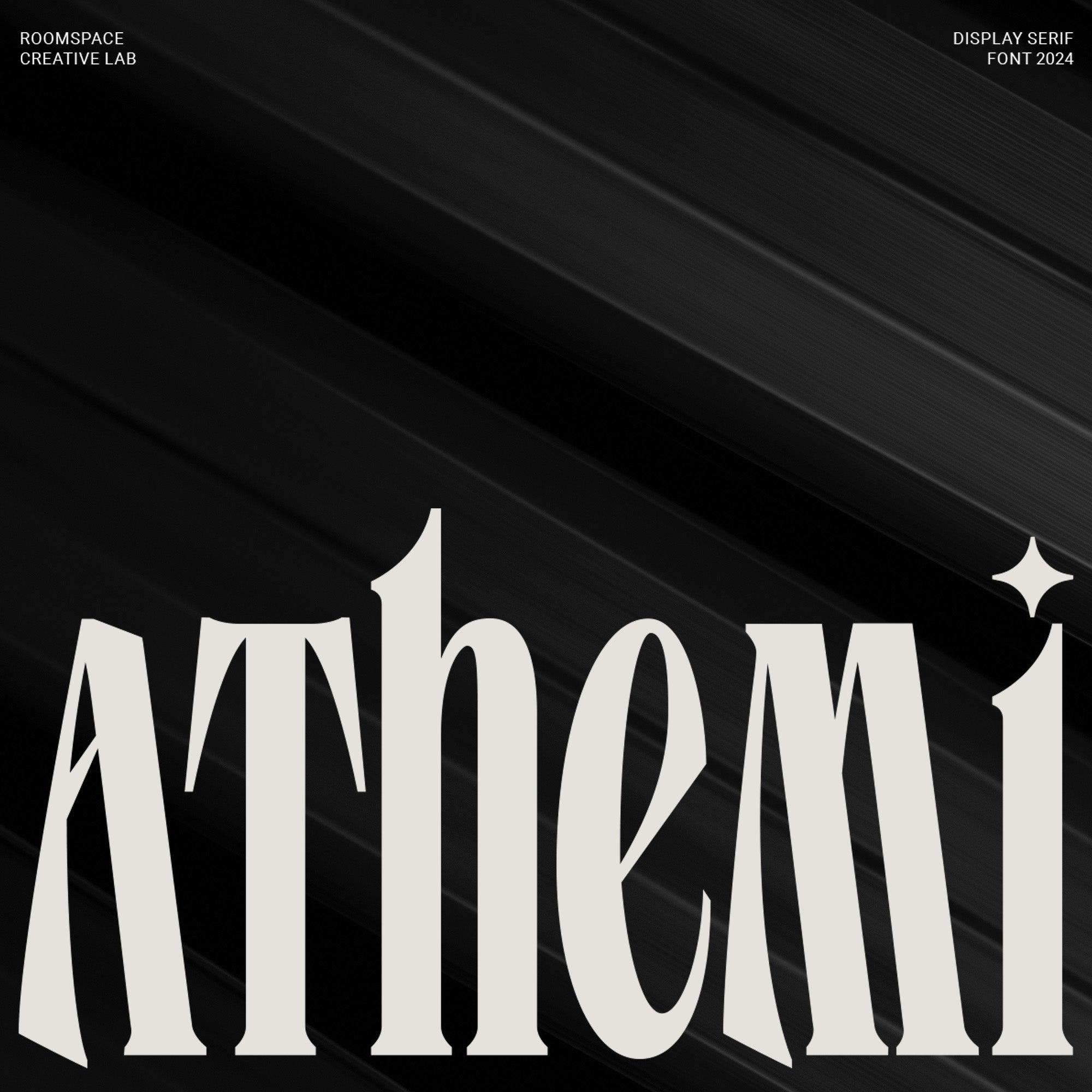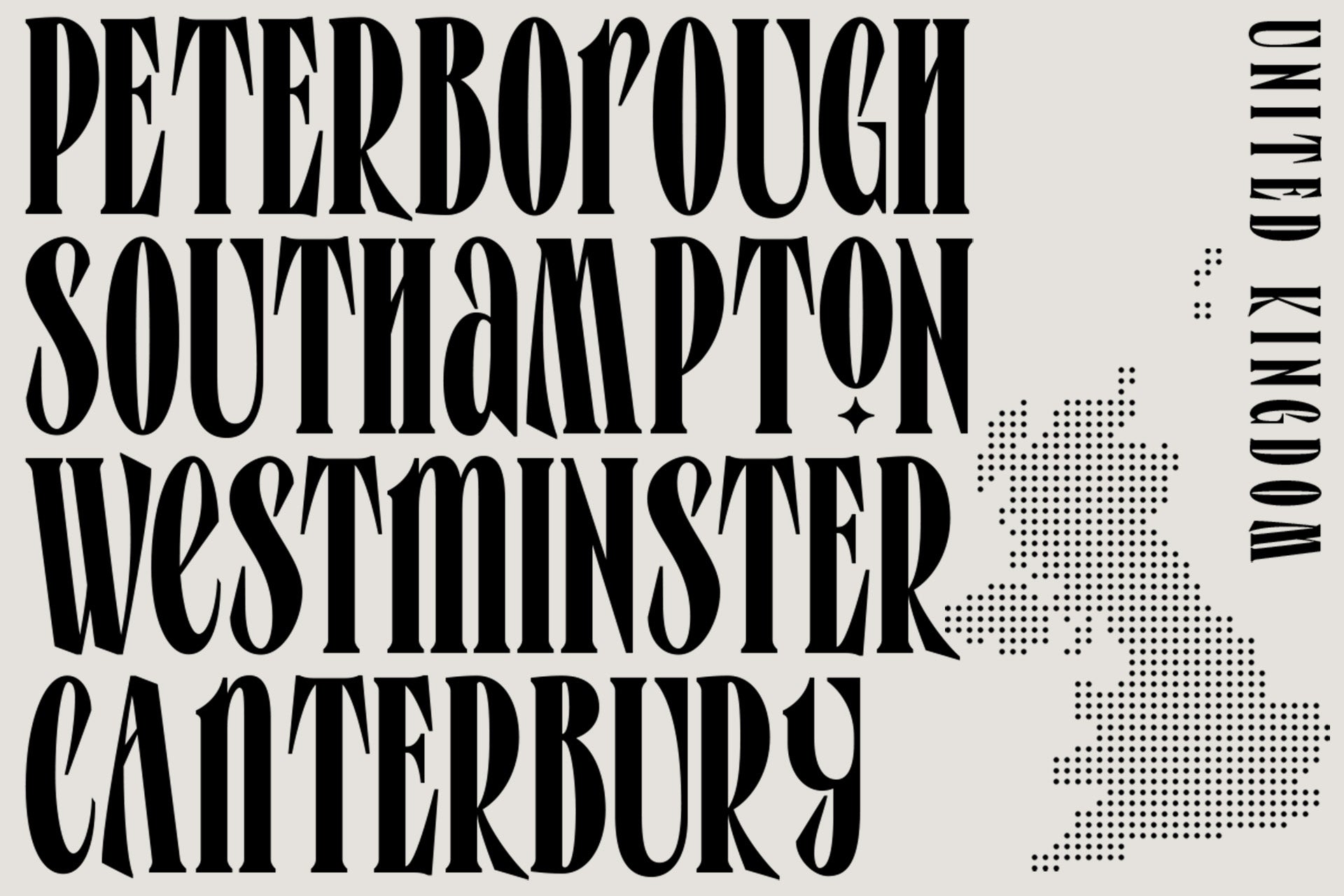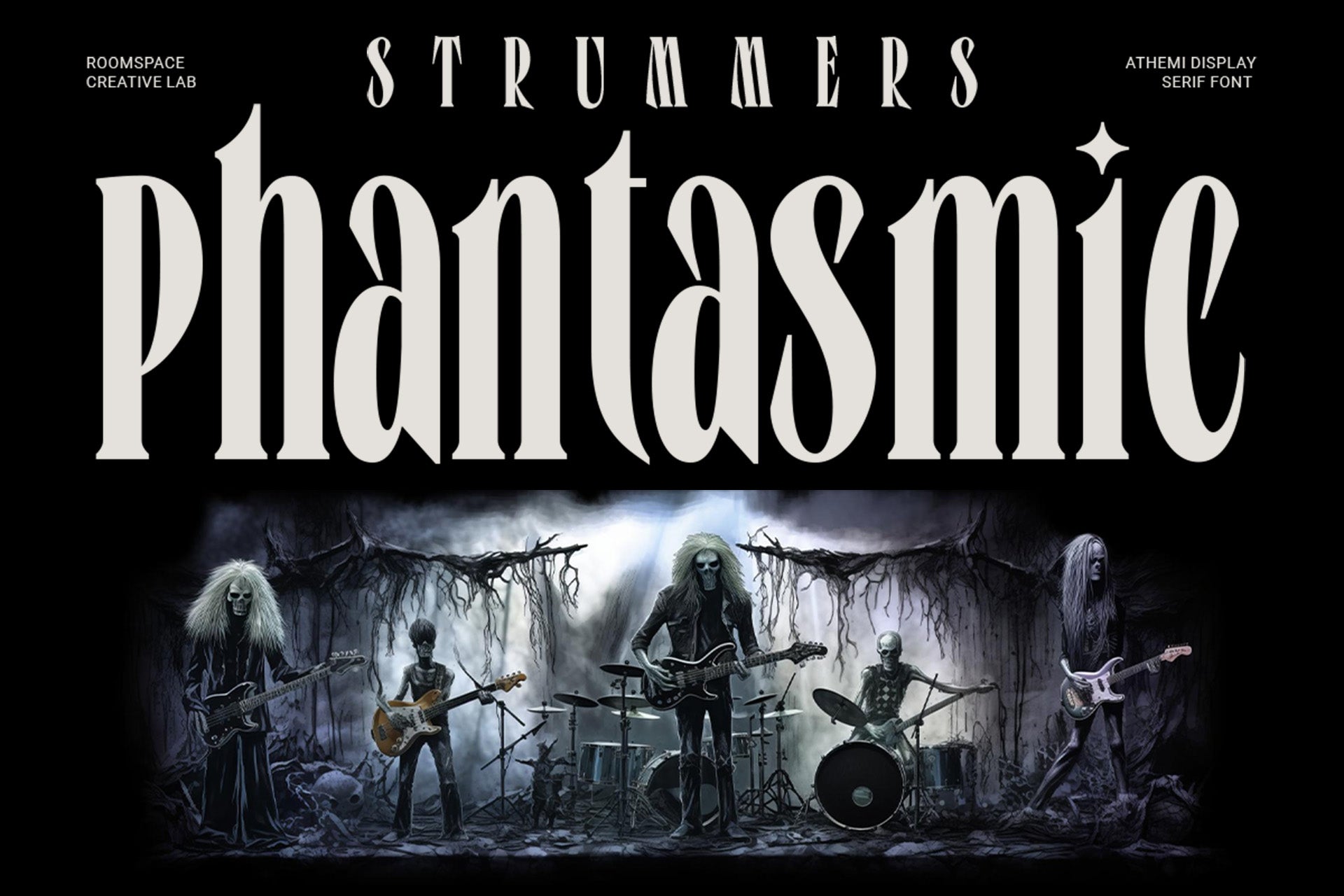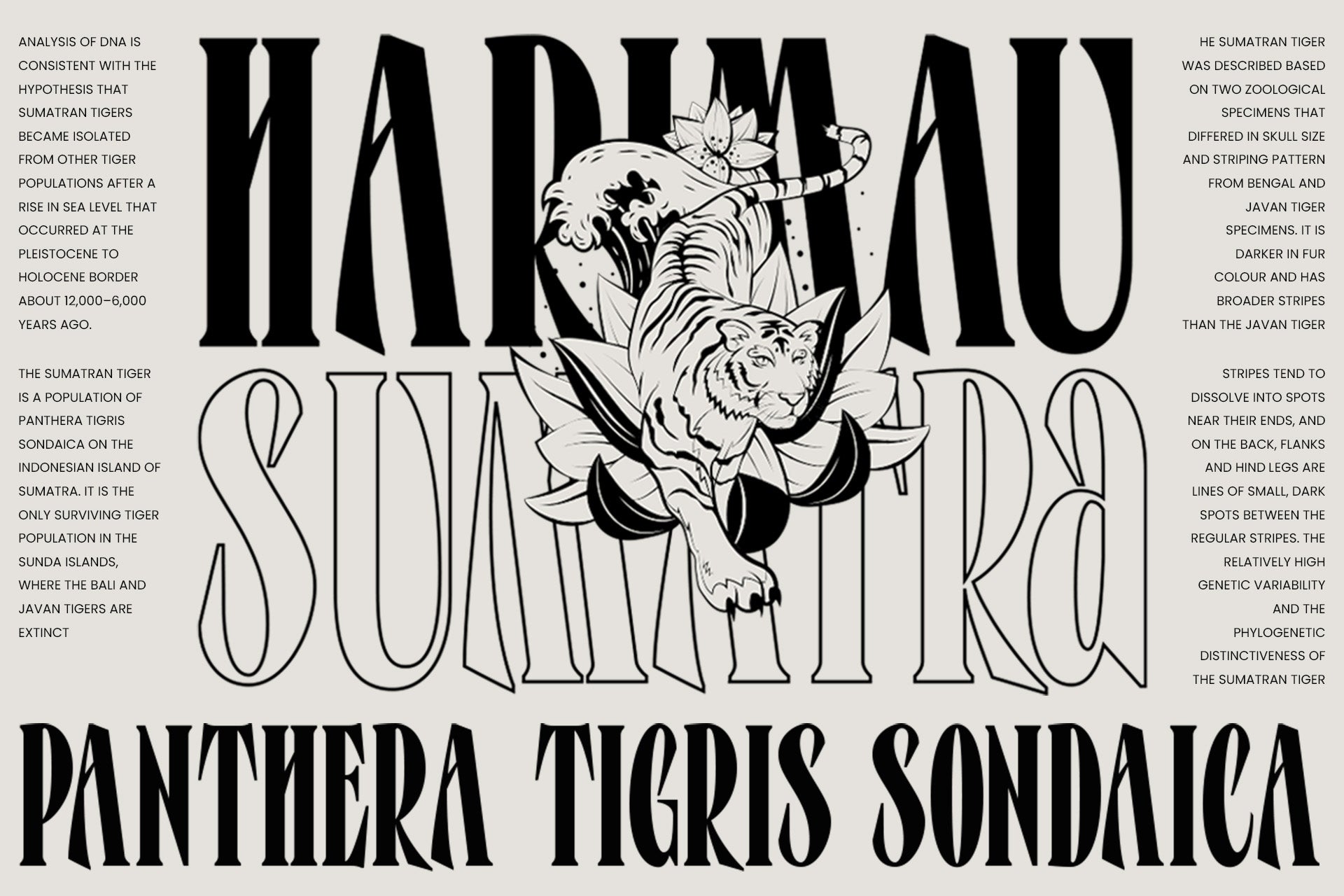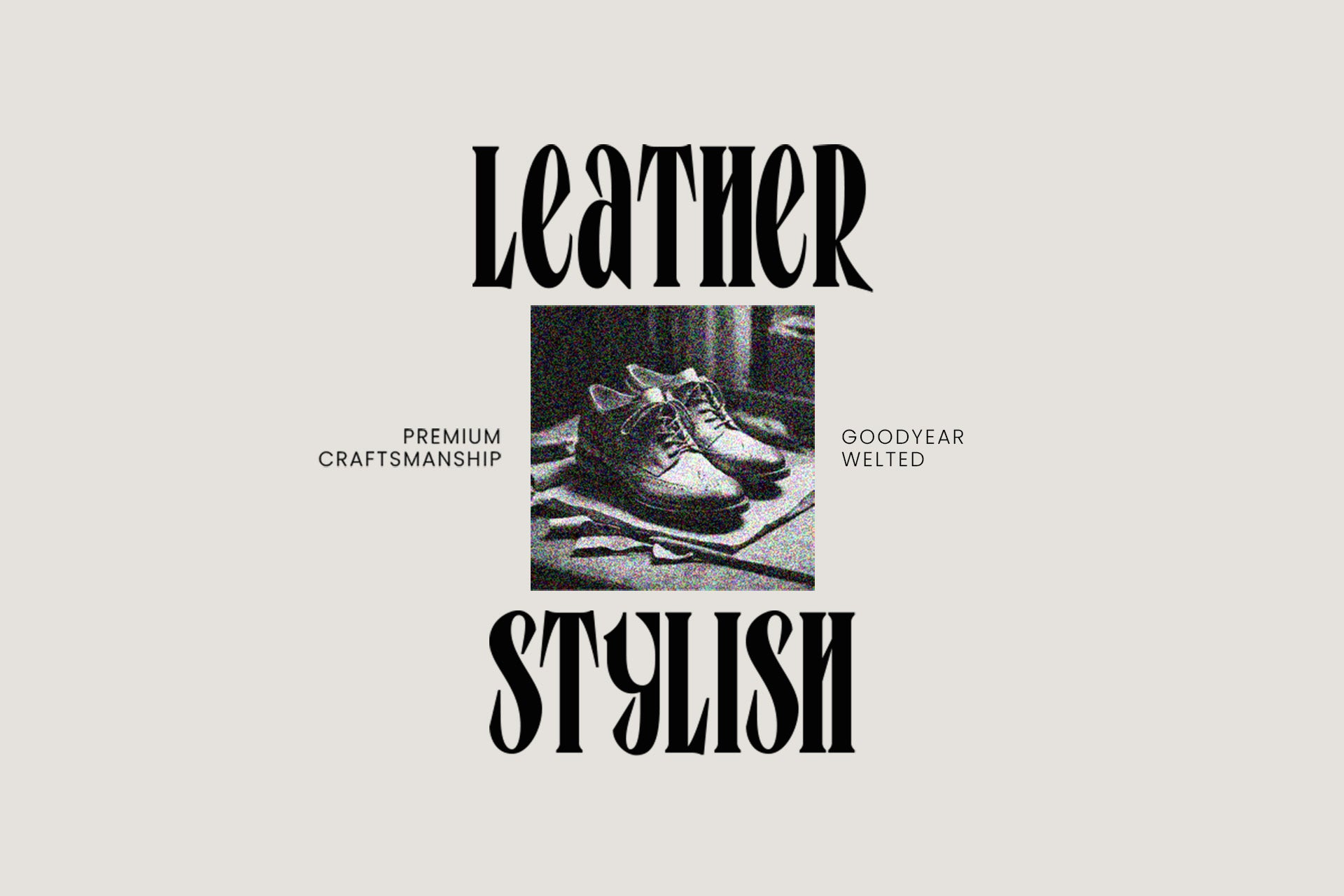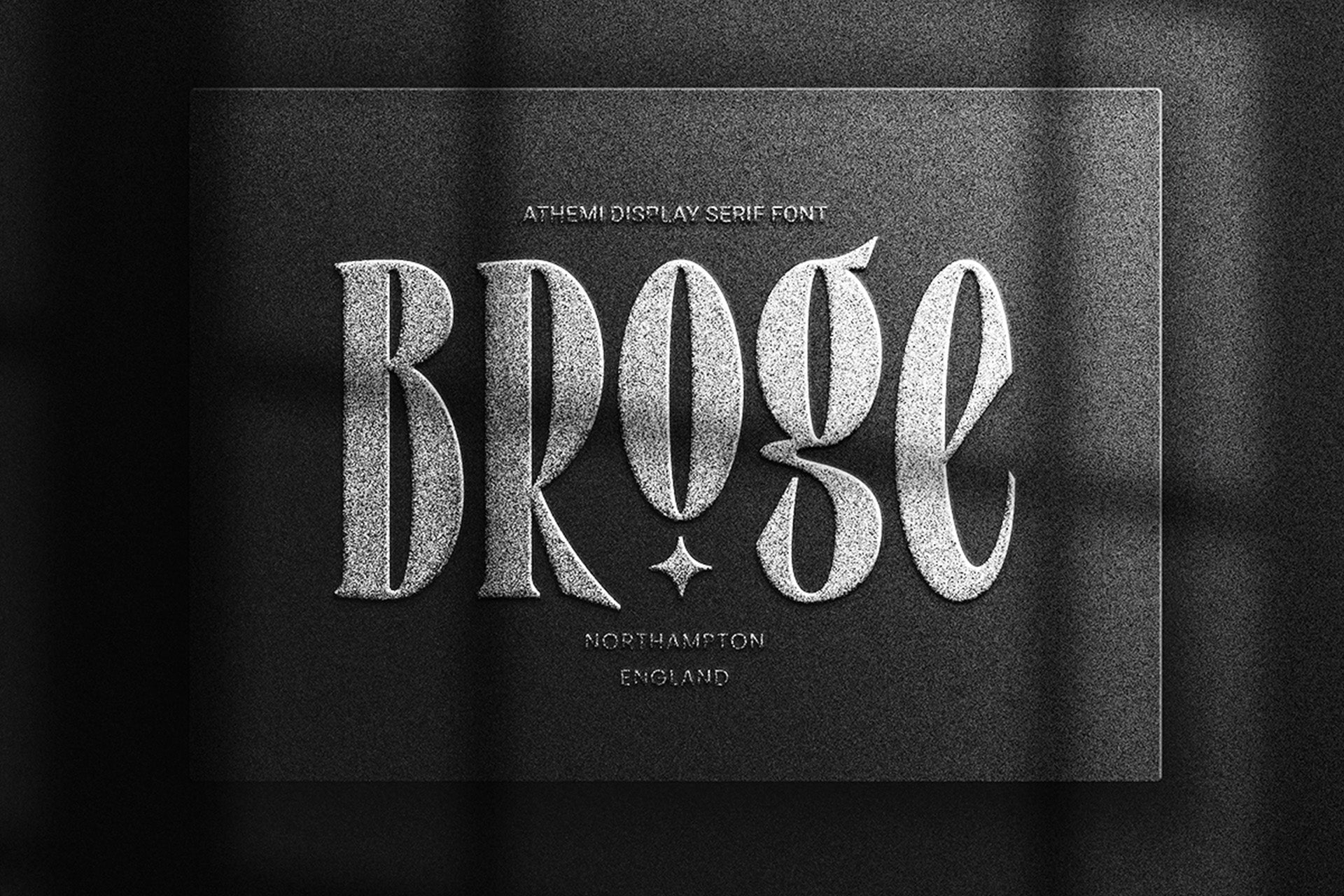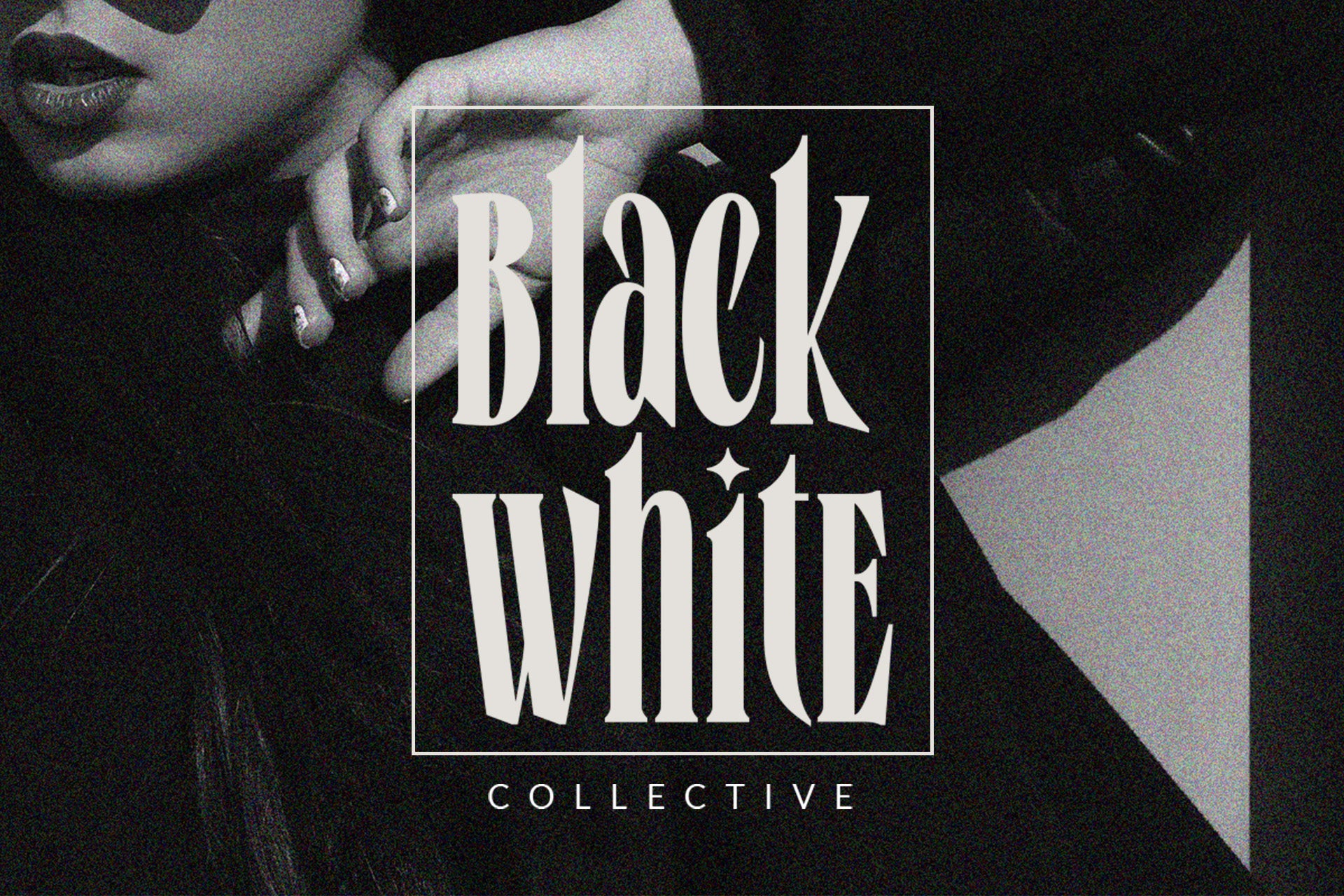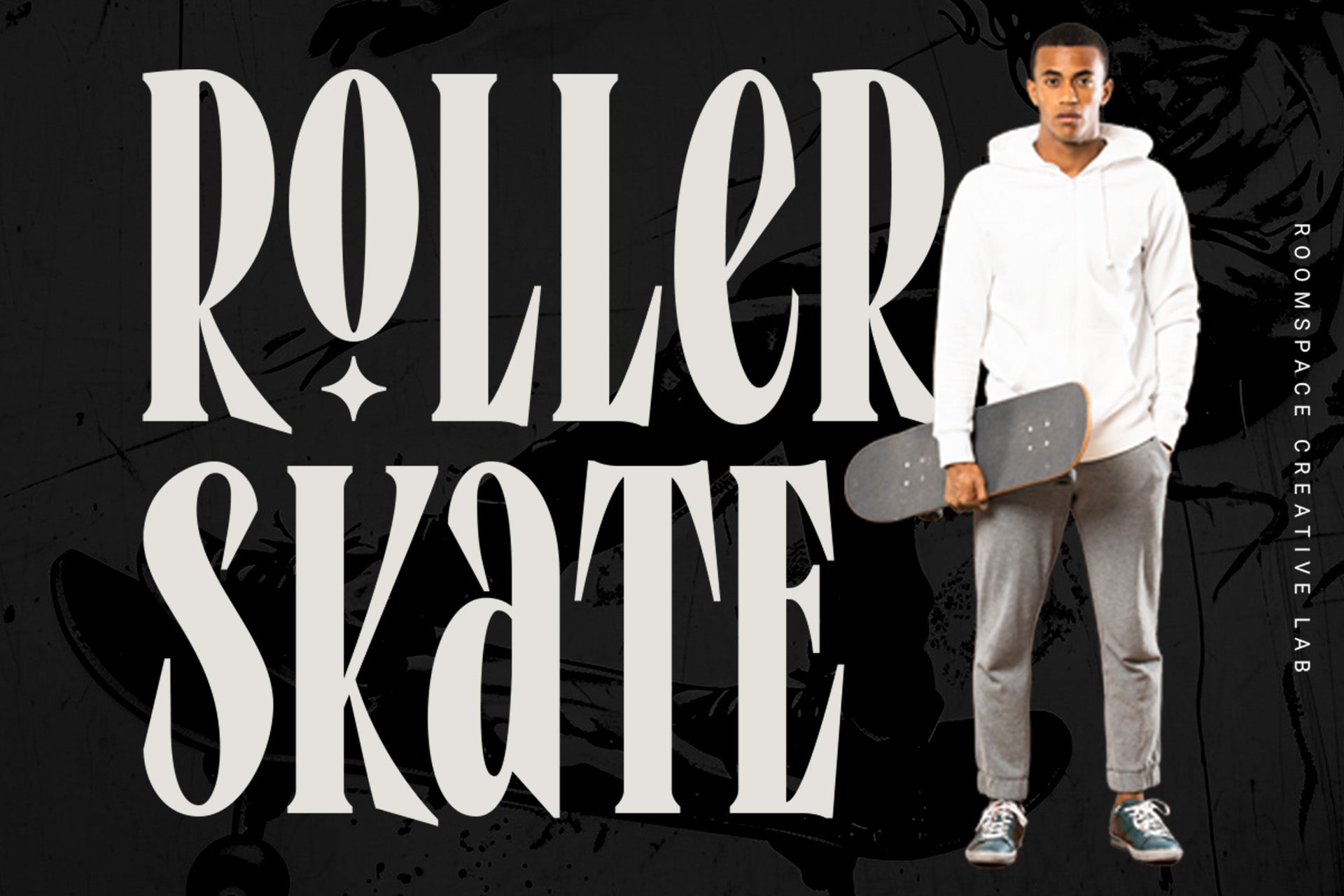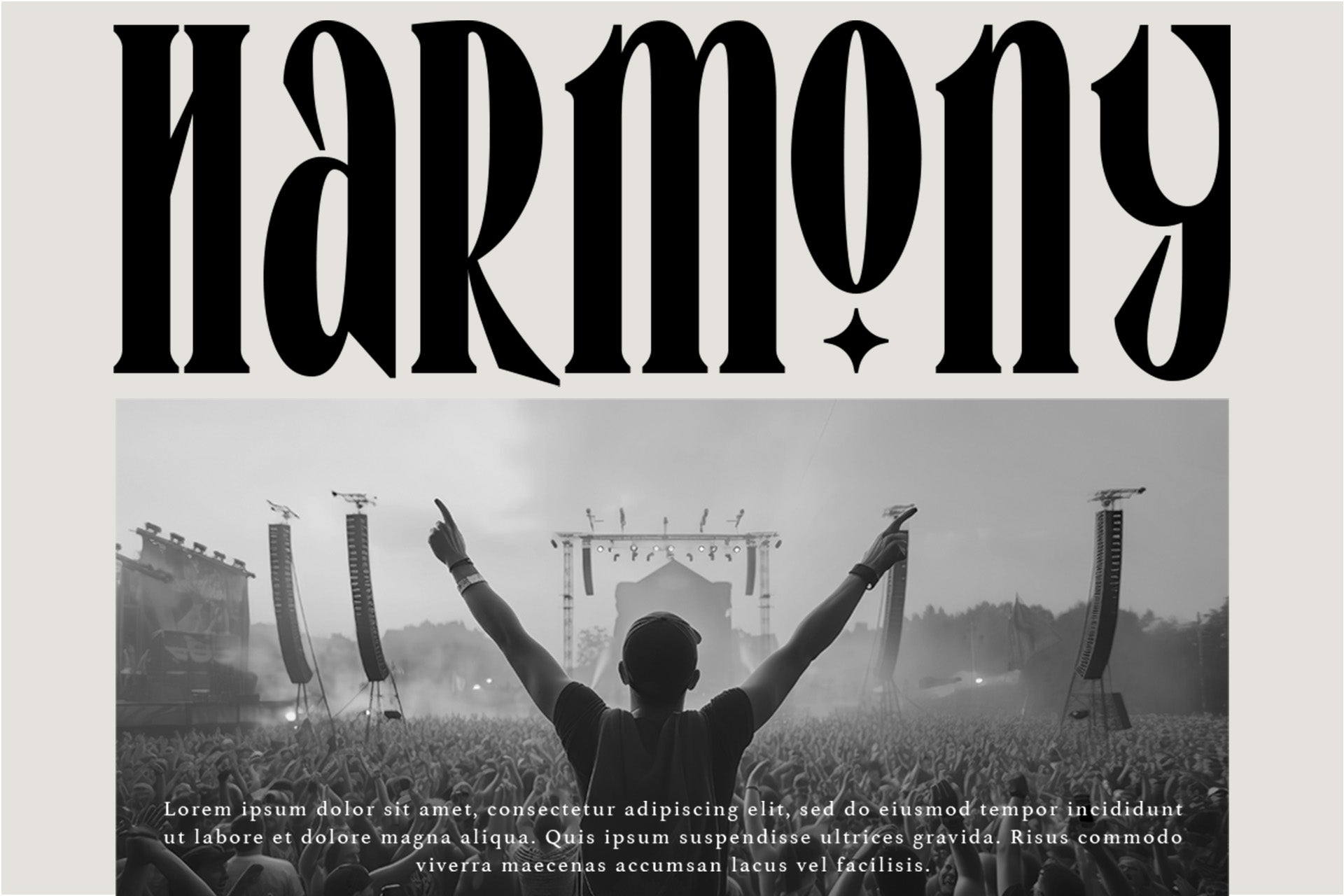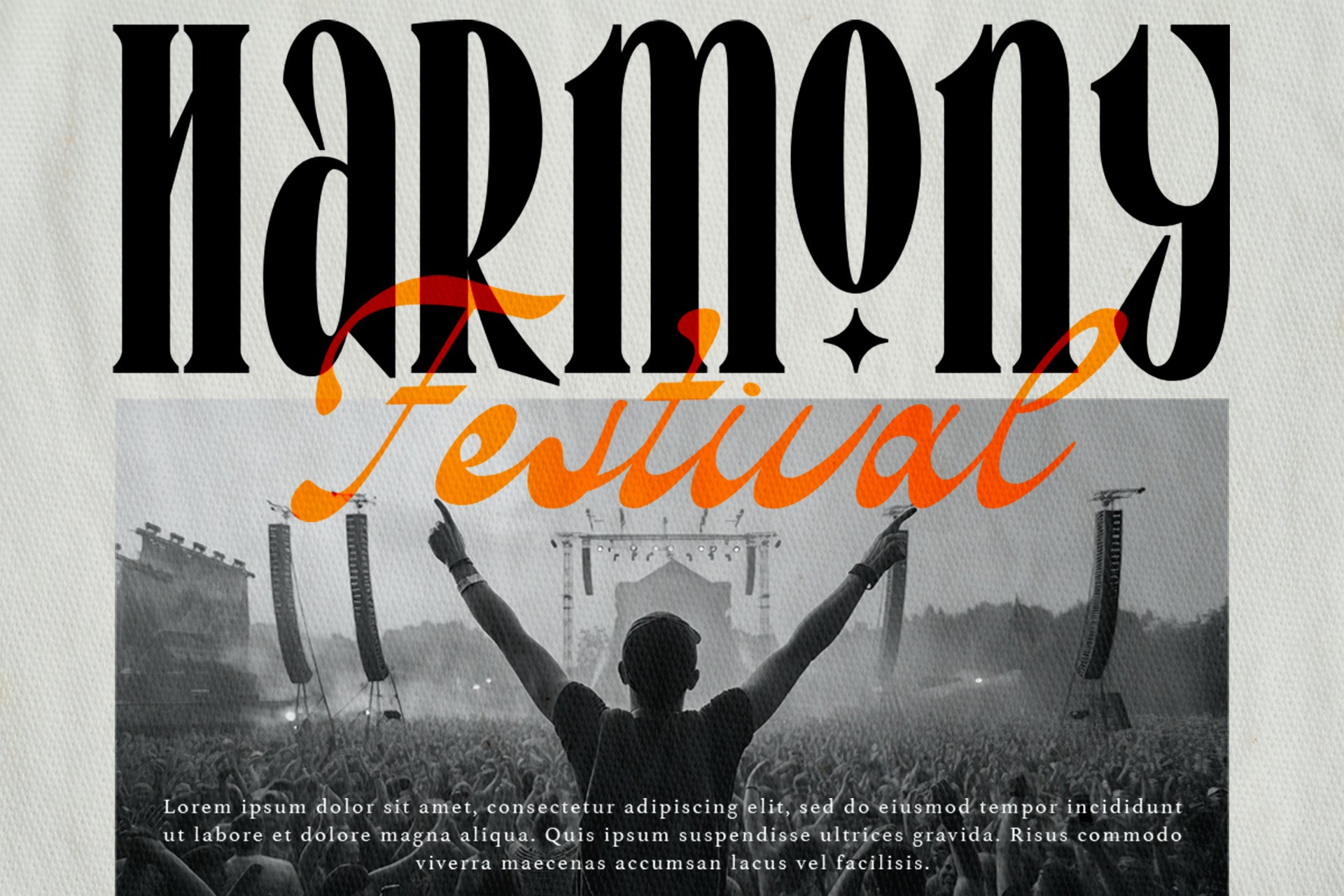
Athemi - Elegant Condensed Serif Logo Font
Athemi is a striking modern serif font that blends high-fashion elegance with editorial sophistication. Its sculpted letterforms and luxurious proportions give every word a commanding yet graceful presence. Perfectly balanced between bold and refined, Athemi evokes timeless charm ideal for brands that want to express confidence, beauty, and authority. Designed with meticulous detail, Athemi features tall, elegant serifs and refined curvature that stand out in headlines or logos. The smooth flow of each character is optimized for sharp display use, offering perfect spacing and kerning for both digital and print layouts. With its clean edges and high-contrast forms, this typeface delivers a premium and professional look every time. Whether you’re creating high-end fashion branding, editorial layouts, luxury packaging, or timeless invitations, Athemi adds a sense of refinement and prestige to your design. Elevate your typography with Athemi a modern serif that commands attention and radiates elegance.
Athemi is a modern condensed serif logo font that features tall, elegant serifs and refined curvature, designed for sharp display use with optimized spacing and kerning. This typeface combines high-fashion elegance with editorial sophistication, offering a premium and professional look suitable for various branding and design applications.